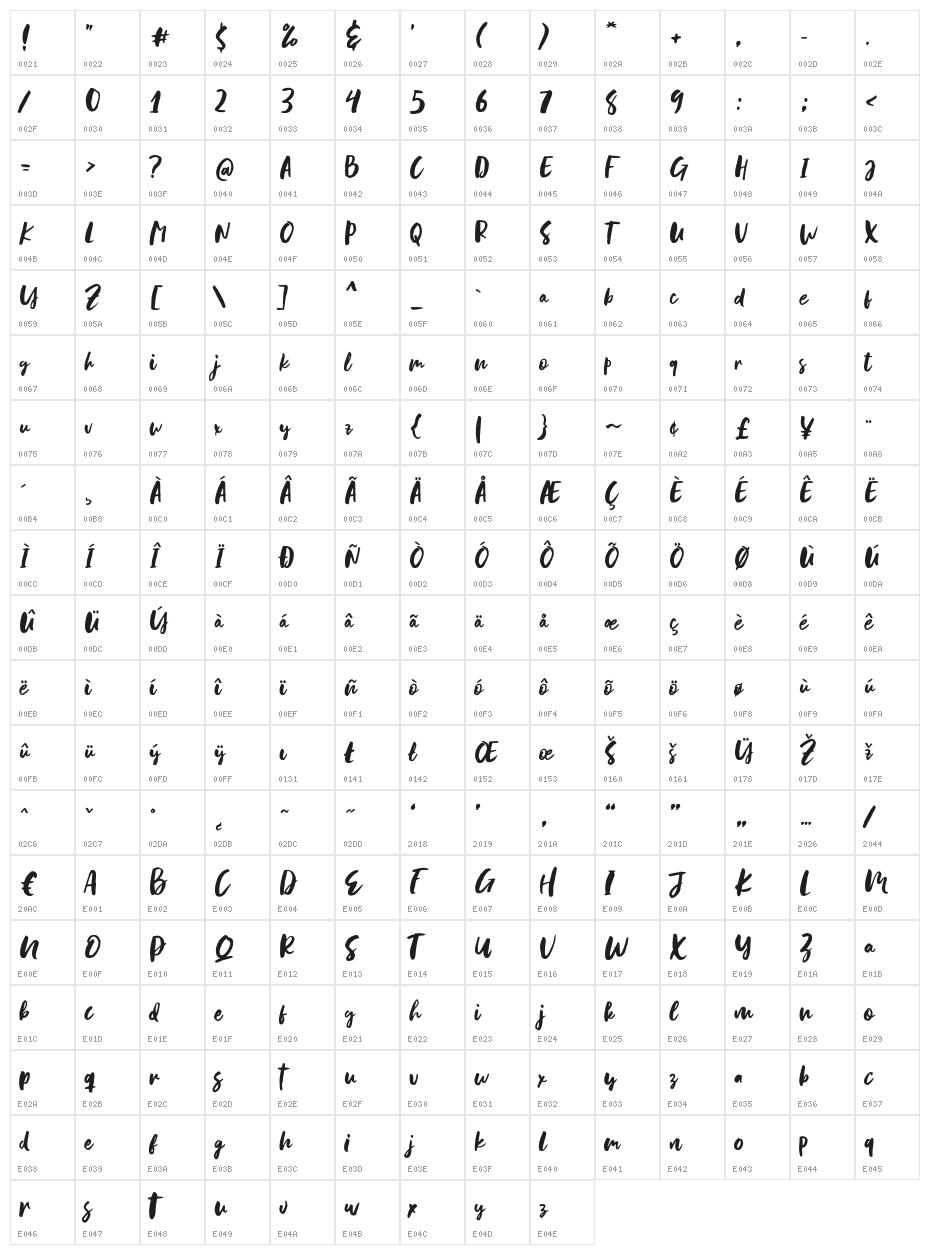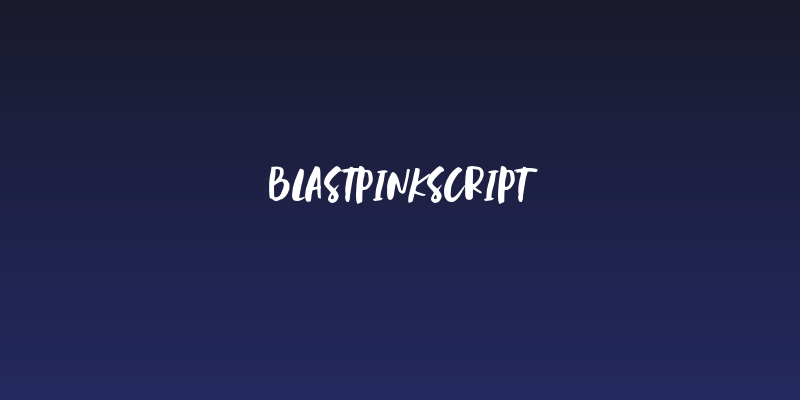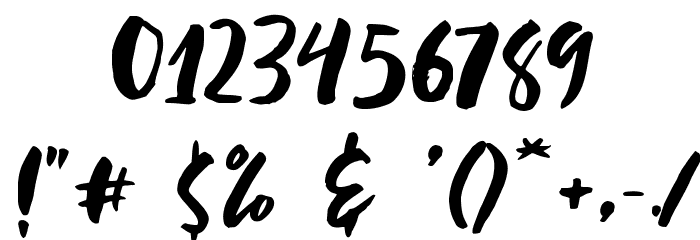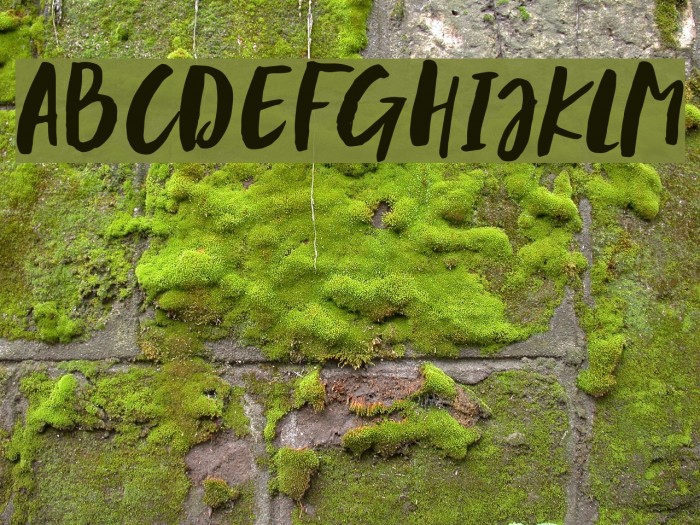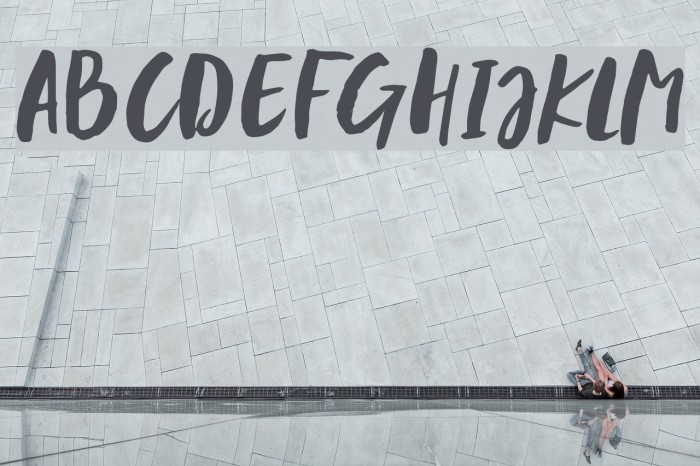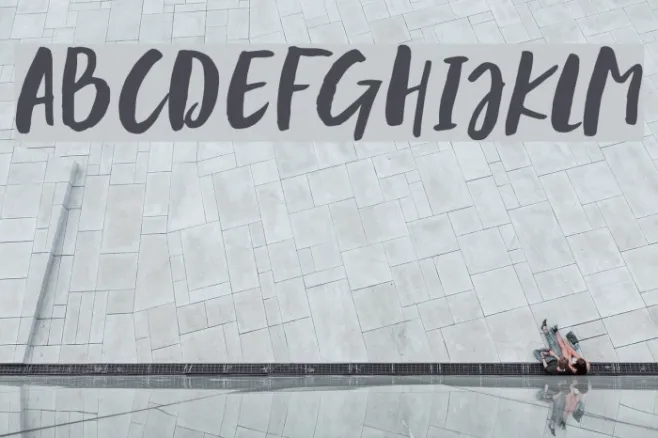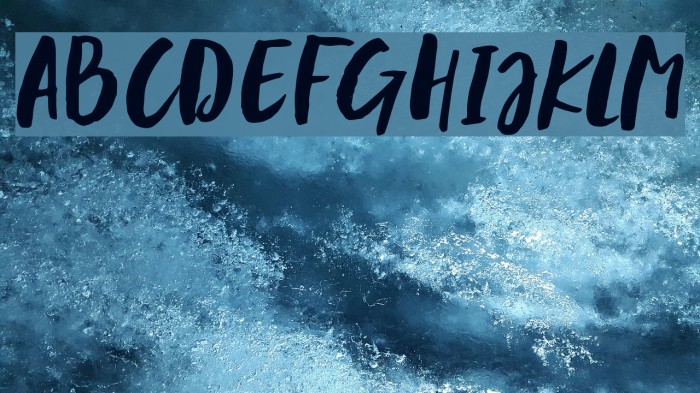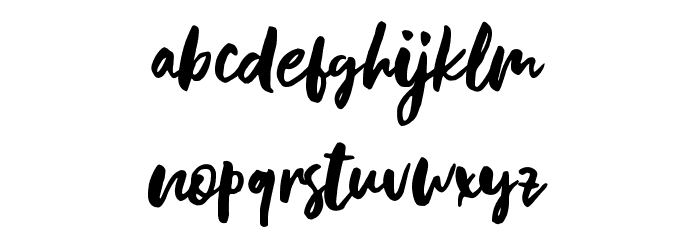
BlastpinkScript Font
BlastpinkScript Description
This font features a bold and expressive handwritten style, characterized by its thick, brush-like strokes that convey a sense of dynamism and energy. The uppercase letters are bold and impactful, while the lowercase letters maintain a fluid and natural flow, enhancing the handwritten aesthetic. The numbers and special characters are consistent with the overall style, offering a cohesive look. The font's organic and artistic appearance makes it suitable for creative projects that require a personal touch.
| Proposed Projects | Ideal for branding, posters, invitations, and social media graphics where a personal and artistic touch is desired. |